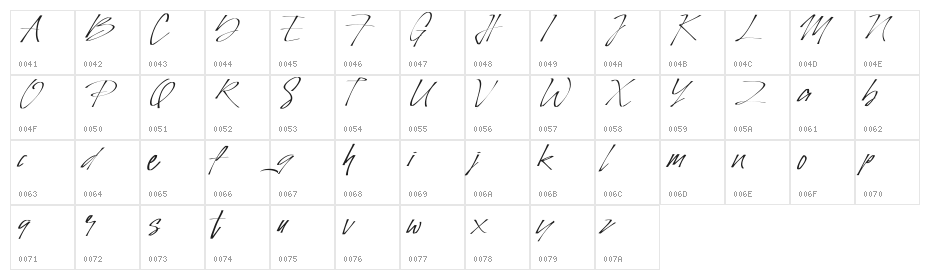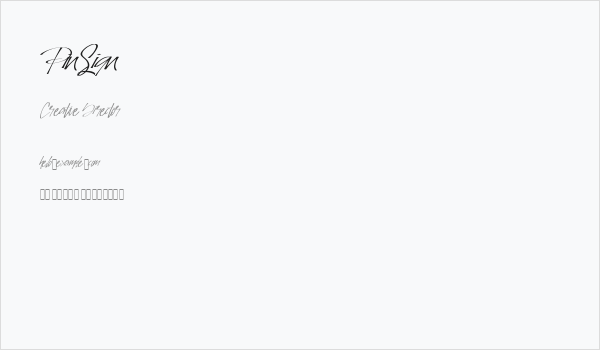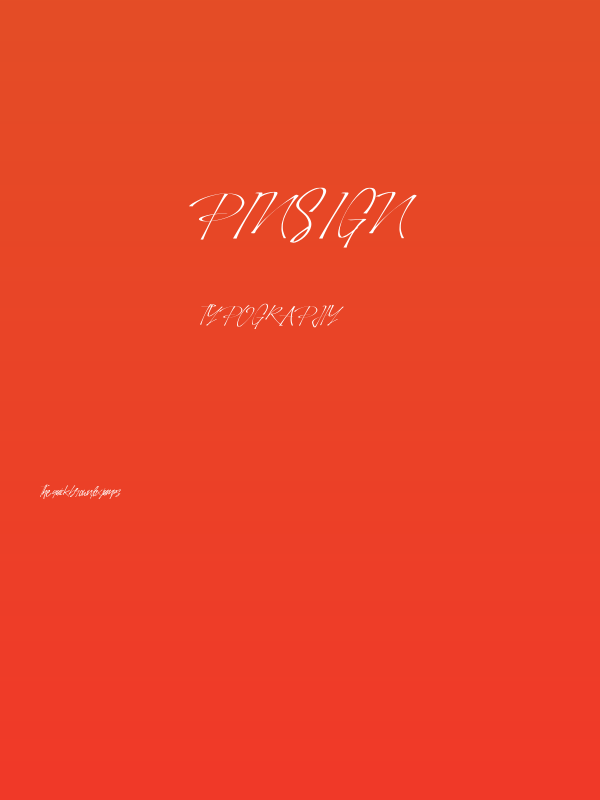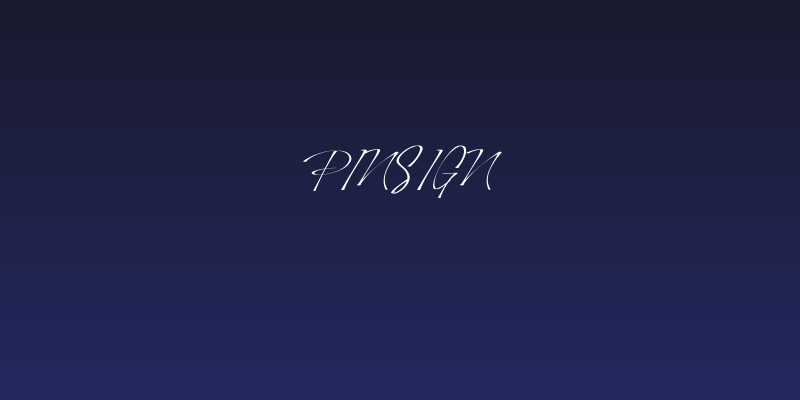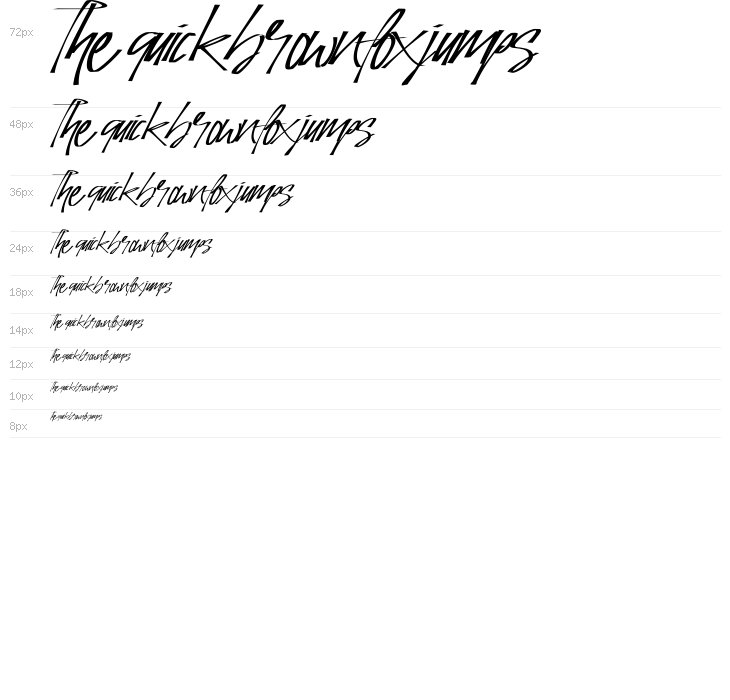
PinSign Font
PinSign Description
This font exhibits a dynamic and expressive handwritten style, characterized by its fluid and cursive strokes. The letters are interconnected, creating a sense of continuity and flow. The uppercase and lowercase characters maintain a consistent slant, adding to the font's energetic appearance. The strokes vary in thickness, providing a medium contrast that enhances readability while retaining a casual, artistic feel. The overall design is modern and stylish, suitable for projects that require a personal touch or a creative flair.
| Use Case | Logos, Invitations, Creative projects |
| Proposed Projects | Ideal for personal branding, invitations, greeting cards, and creative design projects. |